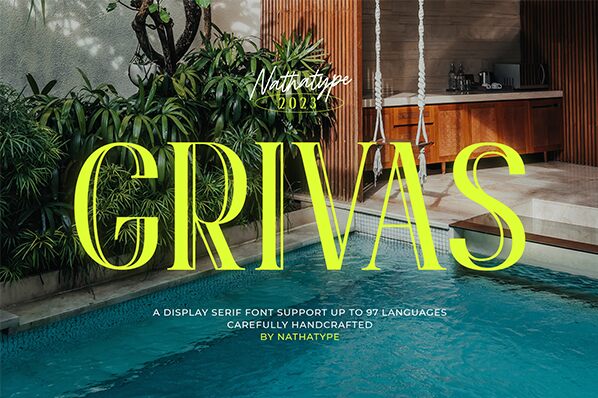
Grivas font by Nathatype captures a mix of retro and contemporary art. As a display font, it goes the decorative route with elegance as its main characteristic. The modern design with artistic touches invites observers to examine each letter and paragraph carefully, an unlikely effect for typed words which are usually meant to be read quickly.
Dress up your web design projects in business or fashion, invitations and greeting cards for private events using this free font. Posters can also carry all the glamour needed inside drops that go above or below letters. Product packaging is another use where Grivas will prove professional while standing out from product photos on social media posts.